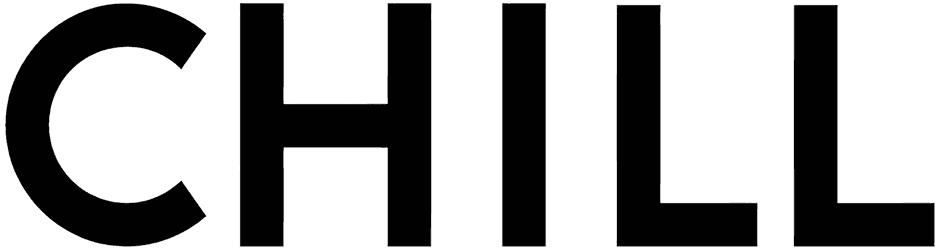
Chill Font
Creative industries, such as architects, designers, and technology owners who want to be on the cutting edge, can use Chill in their projects. This sans serif font has a profound psychological impact on visitors and can…
Creative industries, such as architects, designers, and technology owners who want to be on the cutting edge, can use Chill in their projects.
This sans serif font has a profound psychological impact on visitors and can replace hours of design effort. This means that it conveys your message and shares your brand identity in the shortest possible time. So if you can complete your design without small letters, shine with Chill on book covers, posters, and advertisements.